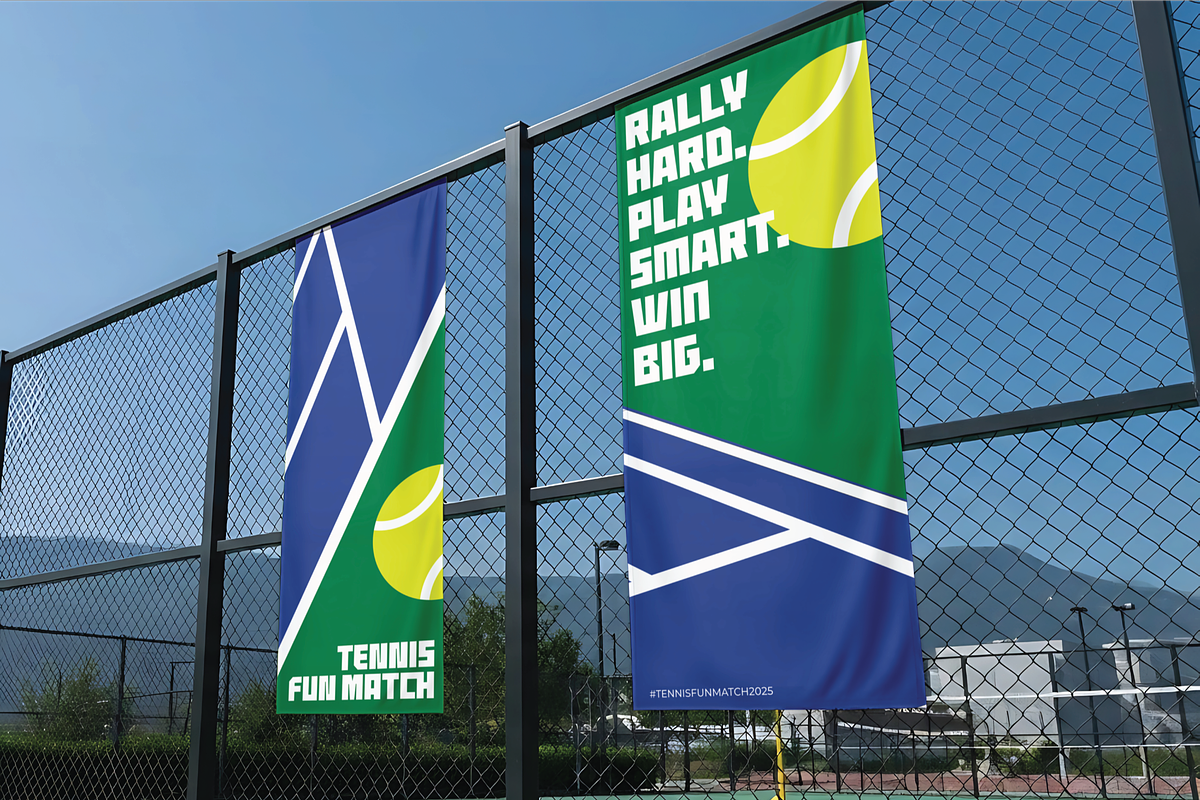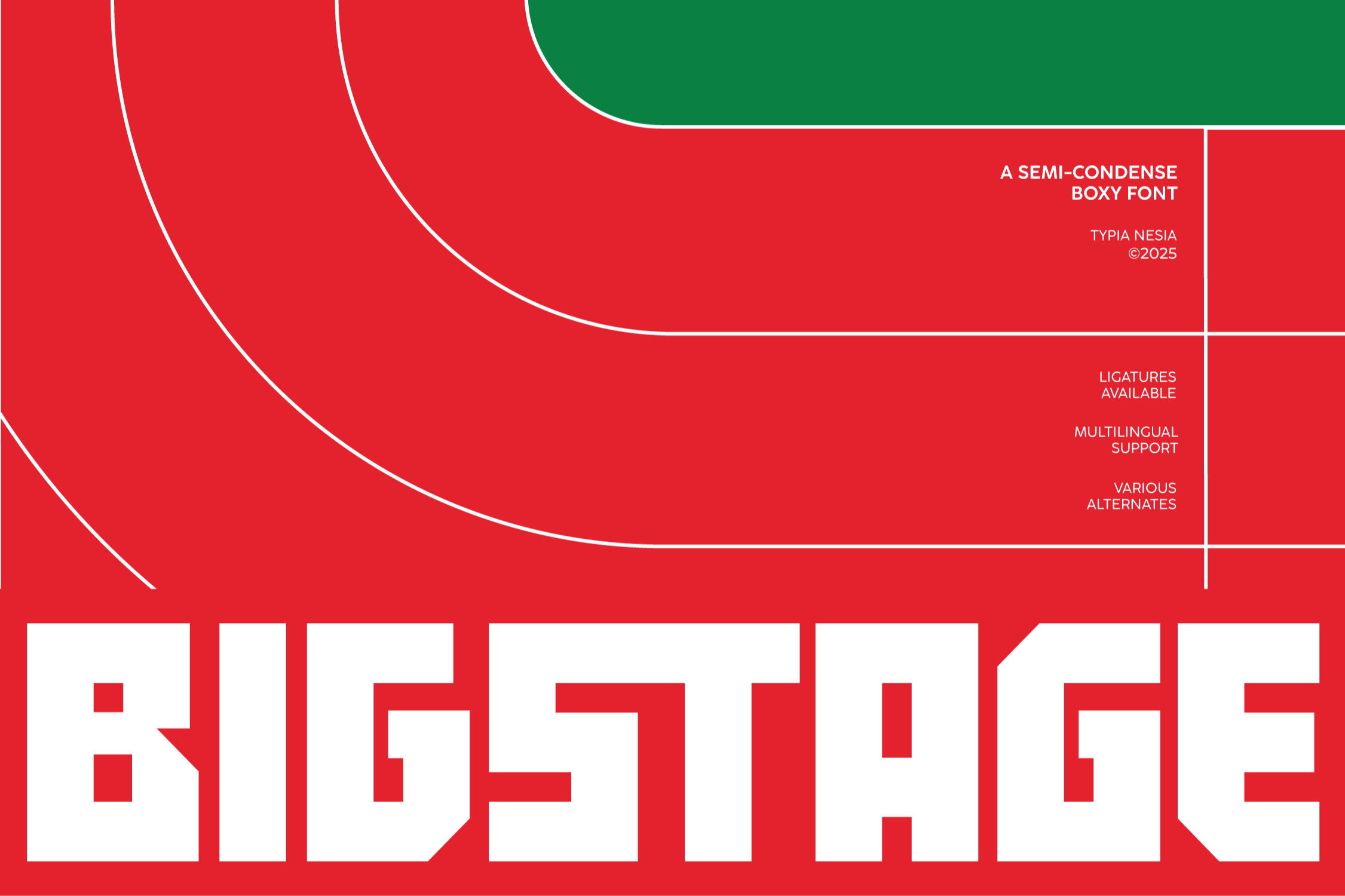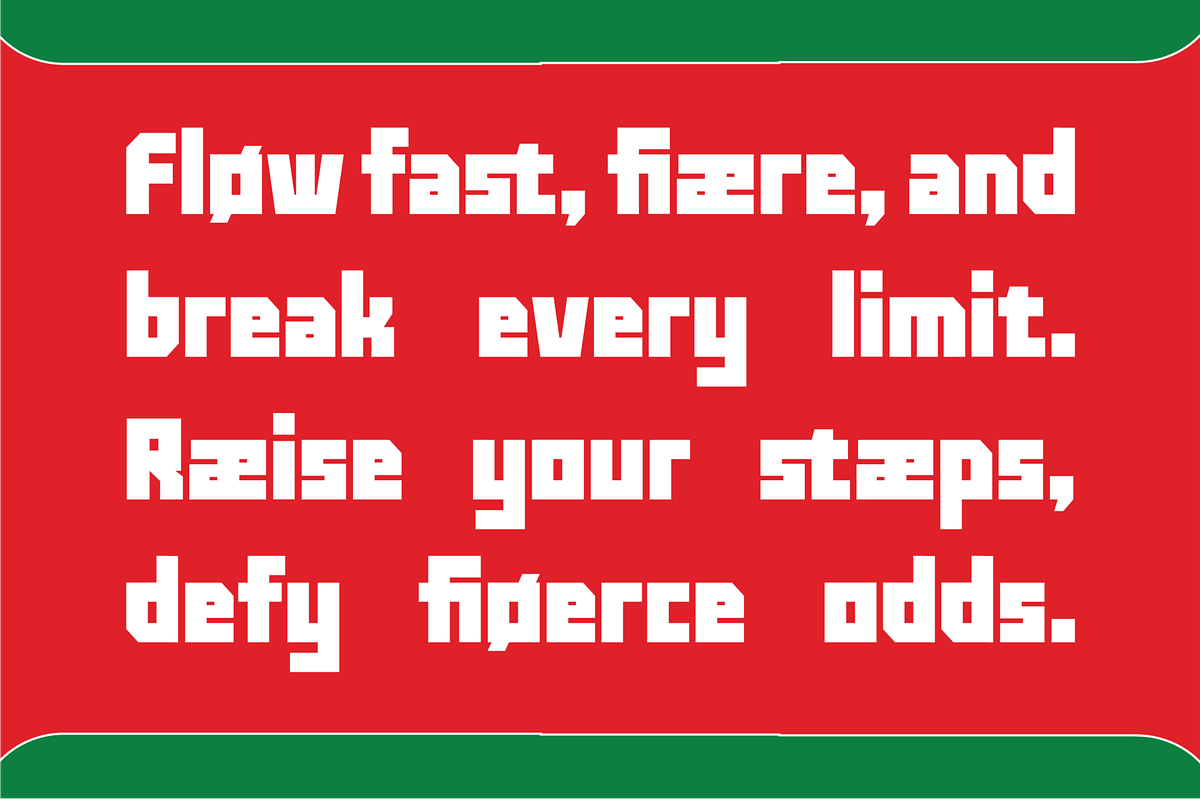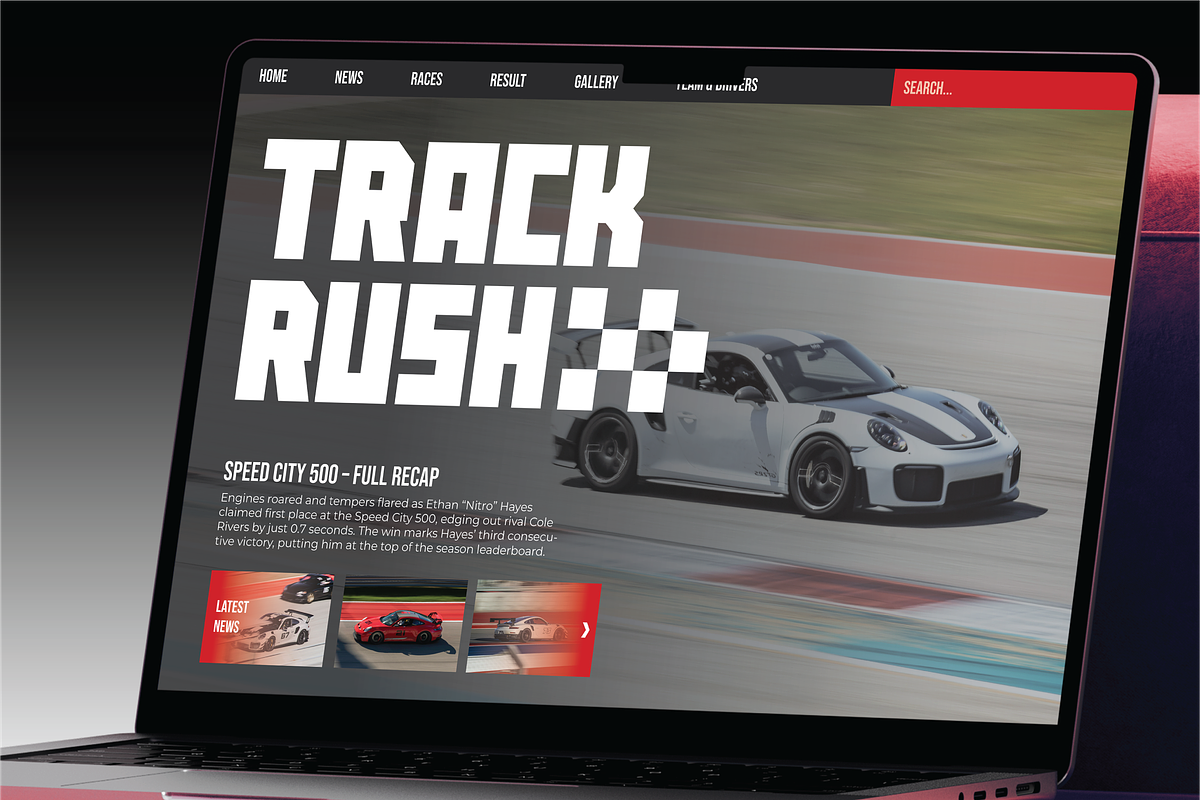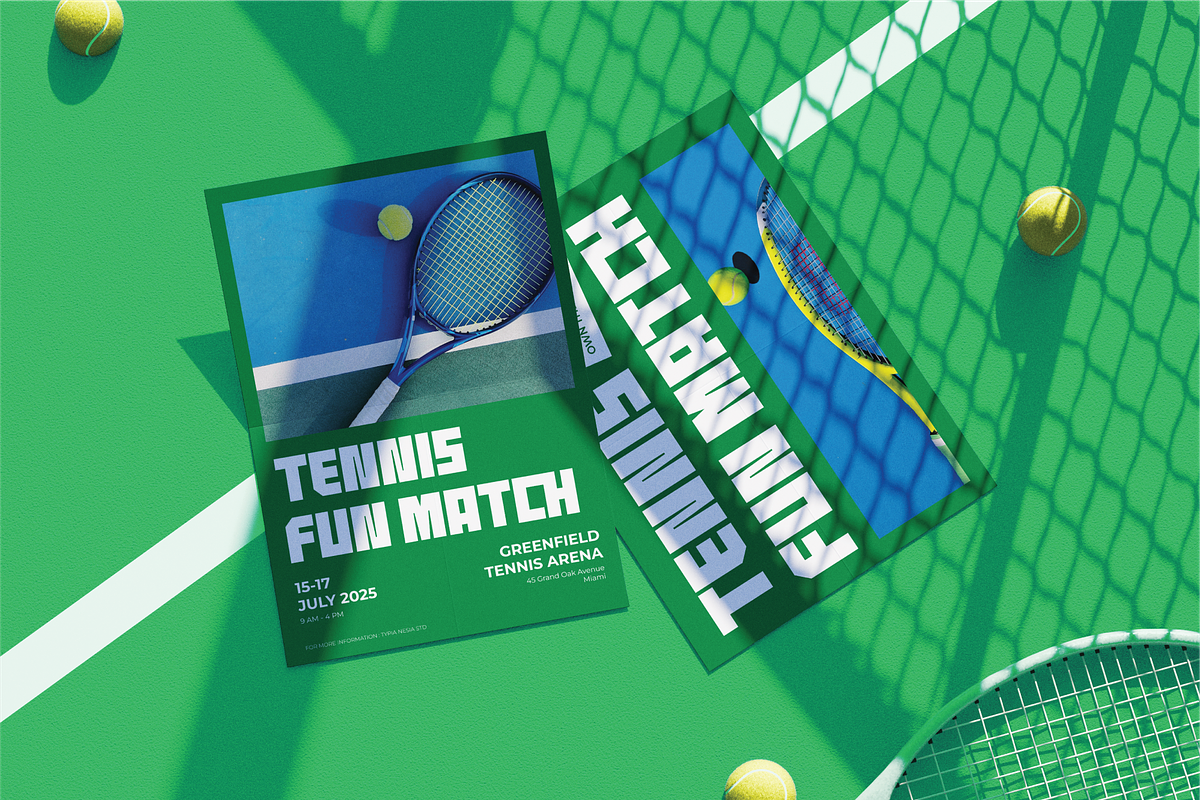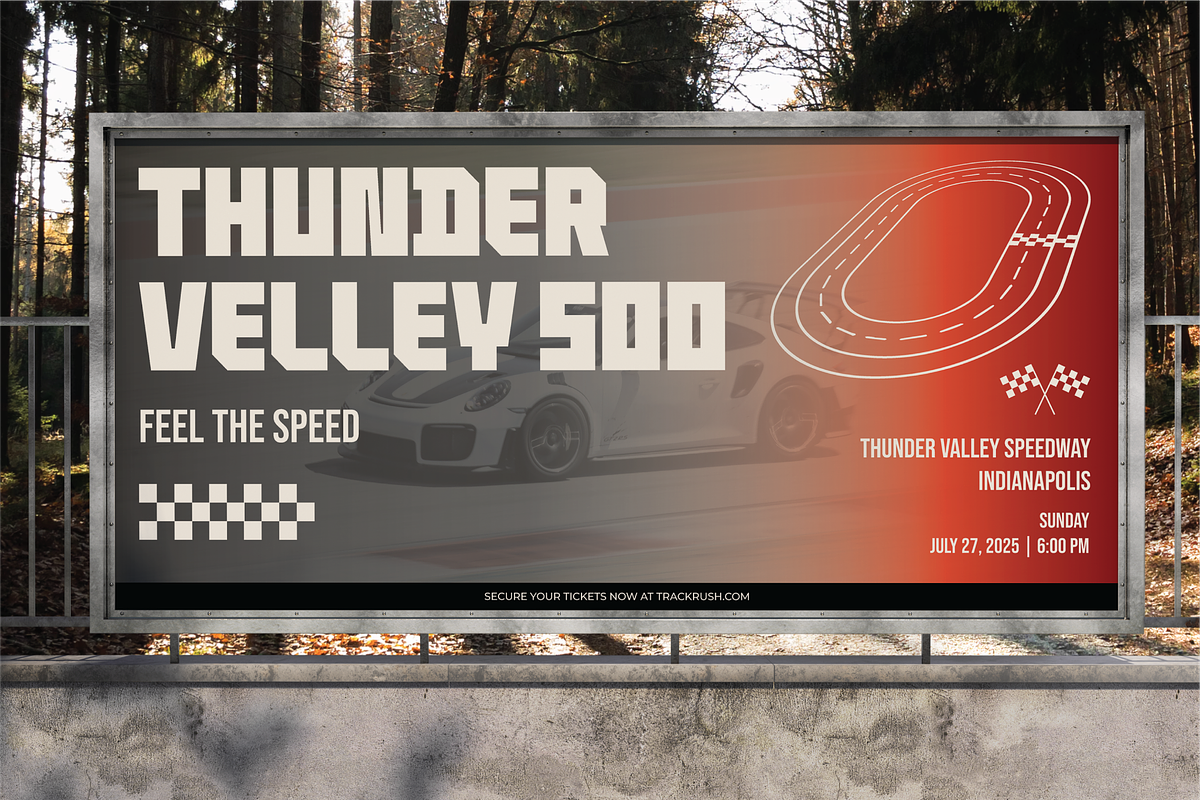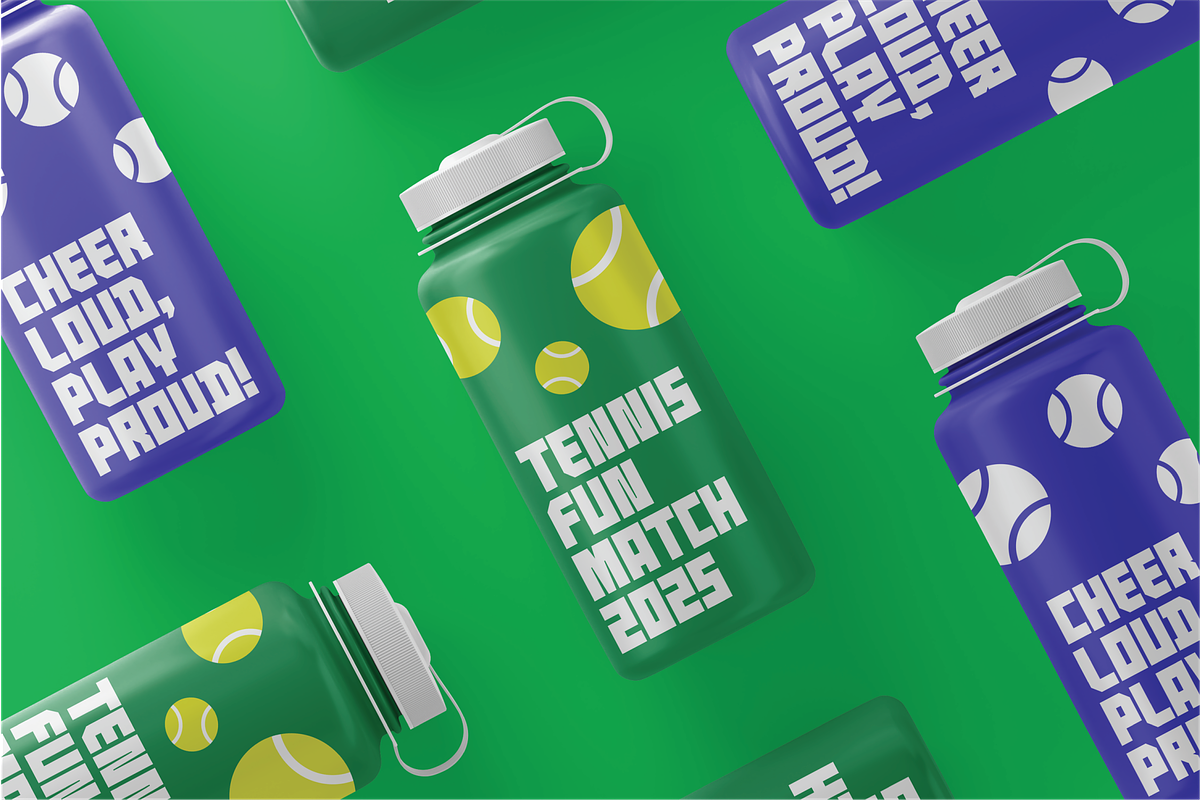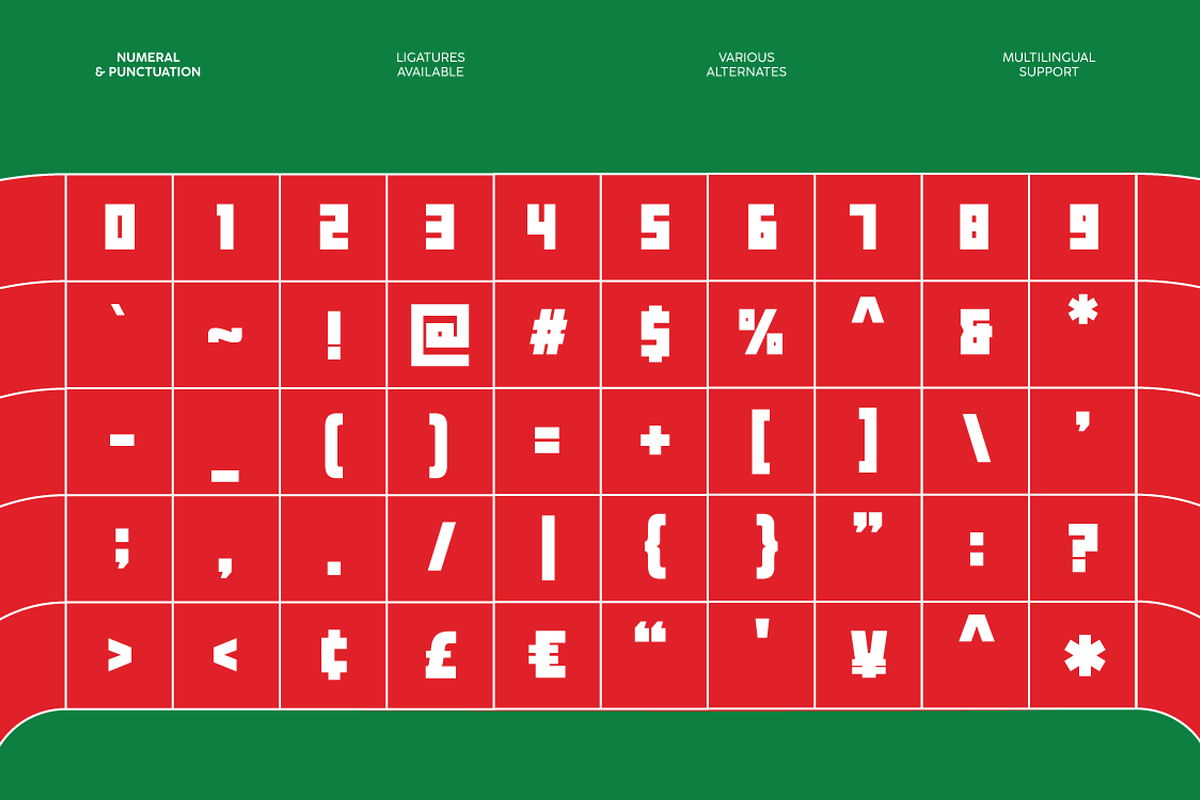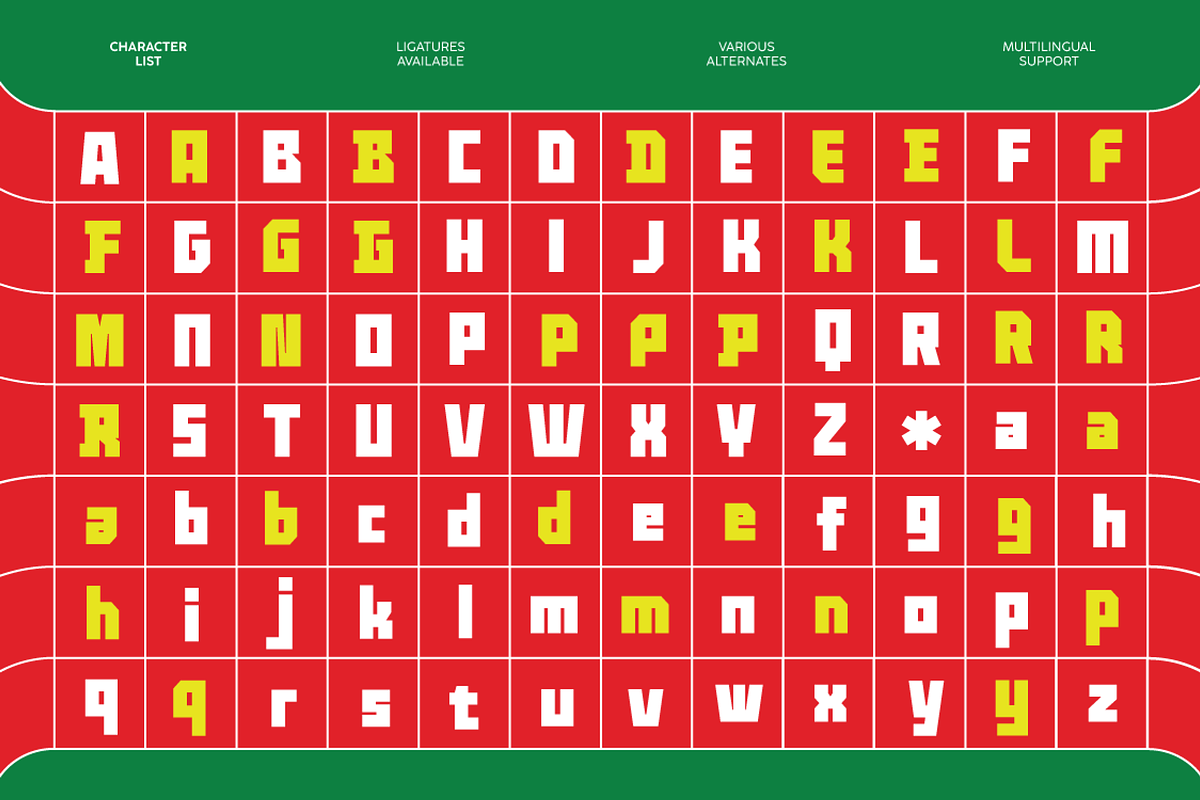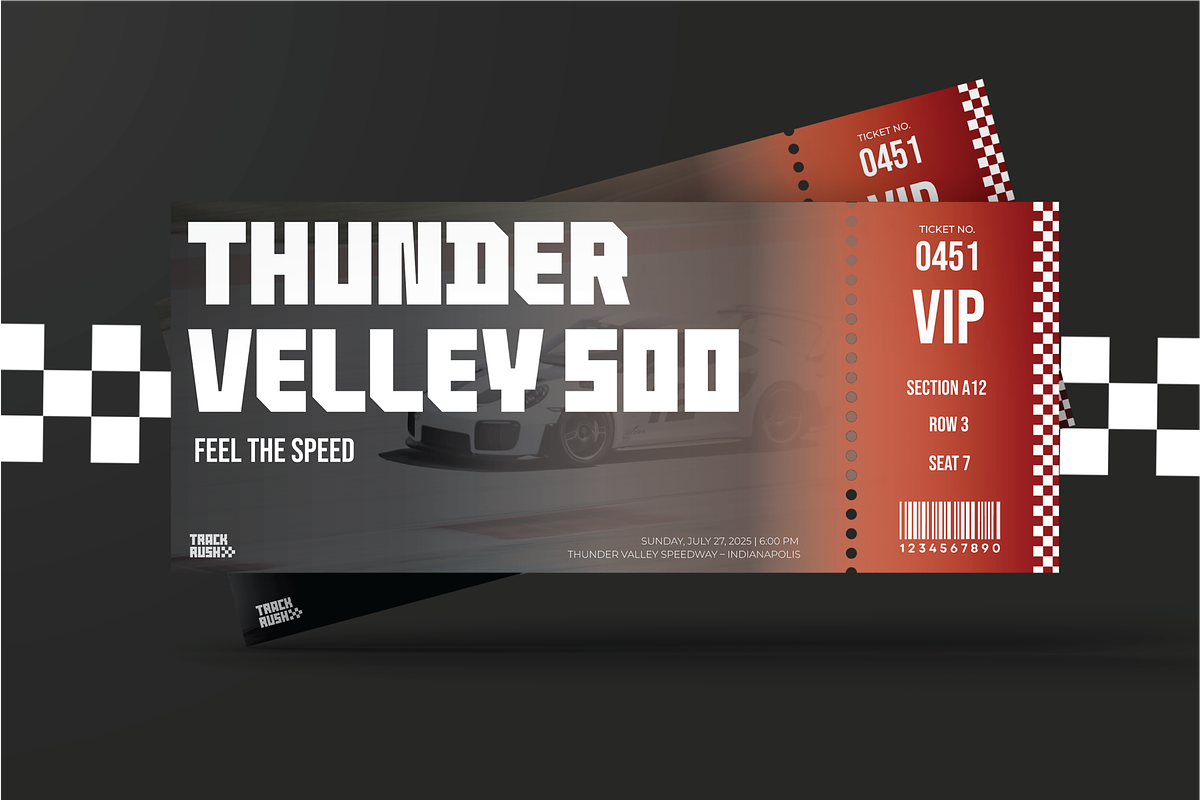
Bigstage - Sport Bold Condensed Font
Bigstage - Modern Sport Bold Condensed Font - Boxy Tech Futuristic Logo Font
Bigstage is a bold and powerful semi-condensed boxy font designed to dominate any design with its strong, geometric presence. With its sturdy, impactful letterforms, this typeface is the perfect choice for sports branding, race event posters, advertising campaigns, logos, merchandise, urban-themed designs and any projects that require a sense of speed, strength, and authority. Bigstage is crafted to stand out, making it an excellent font for striking headlines and powerful logos. It comes equipped with a variety of alternates, ligatures, and multilingual support, giving you the flexibility to create truly memorable and commanding typography.